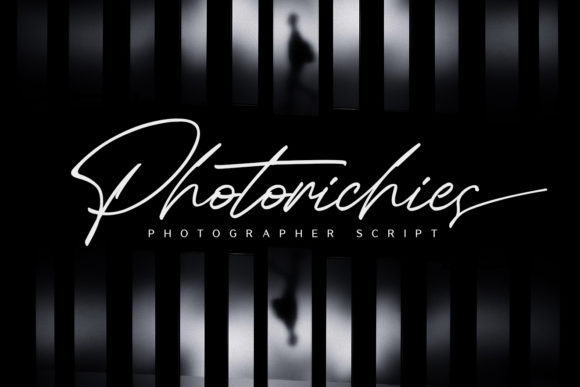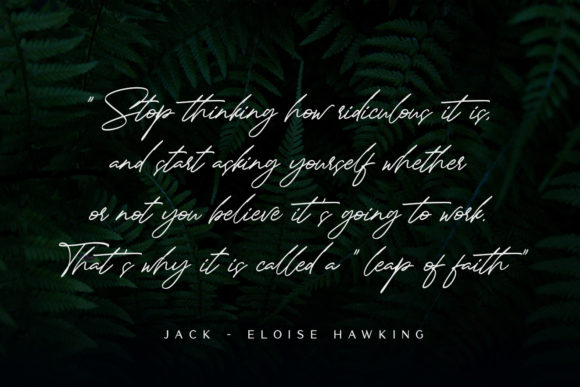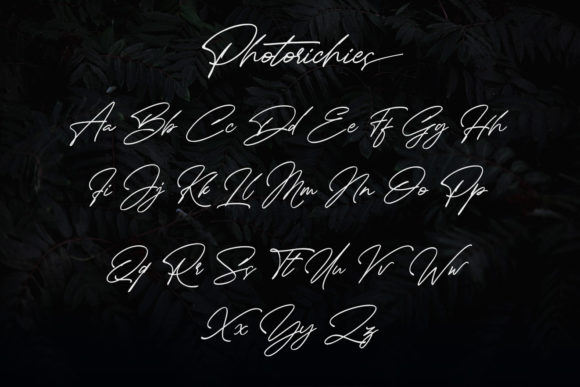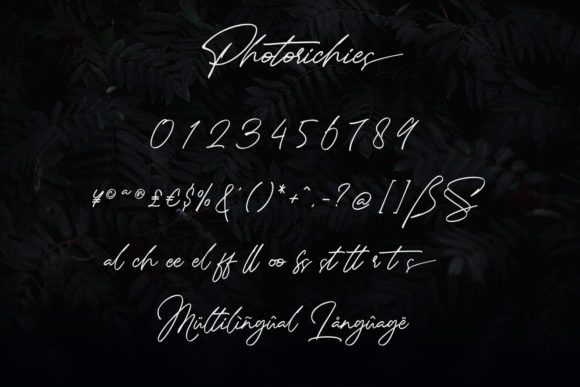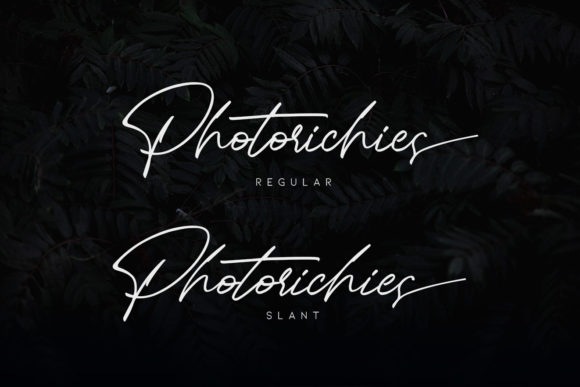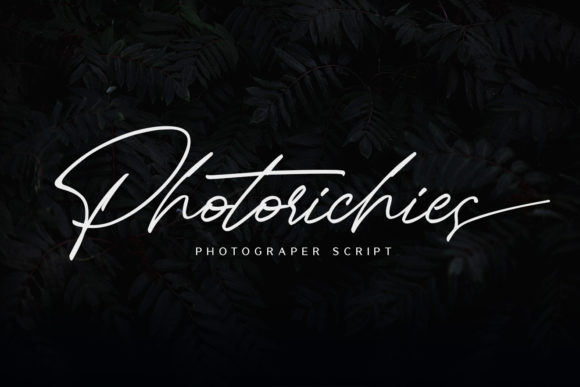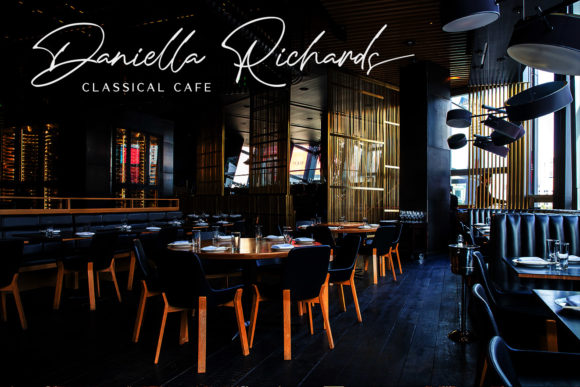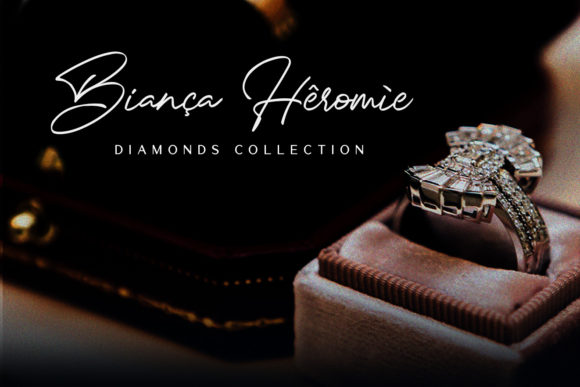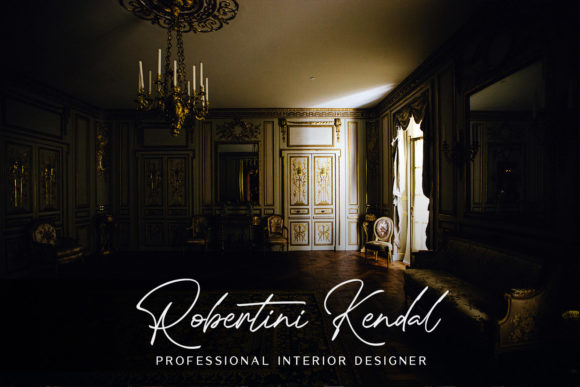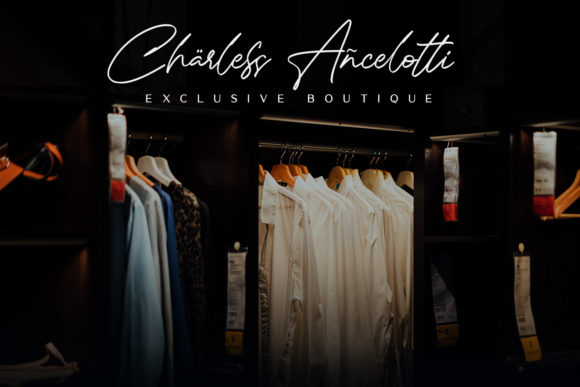
HomeScript FontsPhotoricies Font Script Fonts Photoricies Font FacebookXPinterestWhatsApp Photoricies Font Poster 2 Photoricies Font Poster 3 Photoricies Font Poster 4 Photoricies Font Poster 5 Photoricies Font Poster 6 Photoricies Font Poster 7 Photoricies Font Poster 8 Photoricies Font Poster 9 Photoricies Font Poster 10 Photoricies Font Poster 11 Photoricies Font Poster 12 Photoricies Font Poster 13 Photoricies Font Poster 14 About Photoricies Font Photoricies is a stunning script font that will add an editorial vibe to any design project. DOWNLOAD ON CREATIVE FABRICAThis font is sold and delivered by Creative Fabrica. Font Canyon may earn a commission if you buy through this link. People also explored Tobey Font Cold Daylight Font Cow Font Ully Font Risoles Font Diana and Shelly Font Yakitori Alley Summer Blast Font Aiden Font 288 0 TagsPhotoricies Font Previous articleLove Bird FontNext articleNellyana Script Font LEAVE A REPLY Cancel reply Comment: Please enter your comment! Name:* Please enter your name here Email:* You have entered an incorrect email address! Please enter your email address here Website: Save my name, email, and website in this browser for the next time I comment. Personal Use Free BD Spinner Personal Use Free Read more about this font Larosh Sithal Duo Personal Use Free Read more about this font Batik Classic Personal Use Free Read more about this font Callisa Script Personal Use Free Read more about this font BLOG Using Fonts in Digital Marketing: Tips to Strengthen Your Brand Identity In the realm of digital marketing, every visual element plays a crucial role in shaping a brand's identity, and fonts are no exception. The... Elegant Wedding Invitation Fonts – Handwritten & Script Fonts Free Fonts Risk: Why Free Fonts Can Be Dangerous for Designers Top 10 Handwritten Fonts That Elevate Your Designs